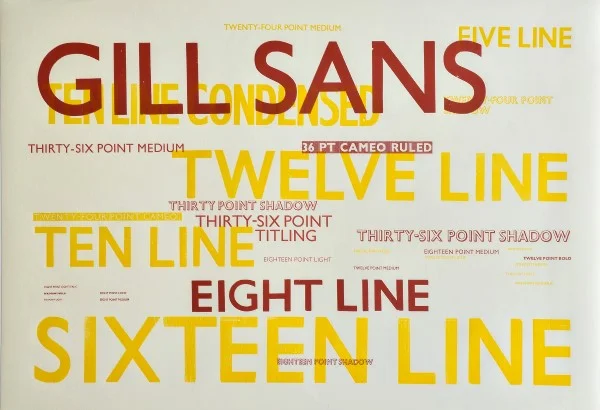
‘Gill Sans’ is a tribute to Eric Gill’s most famous typeface, designed in 1928 and still widely used today. The print is produced in two colours, show casing the typeface’s versatility in a variety of fonts and styles – shadow, cameo, cameo ruled, titling, condensed, Italic, light, medium and bold.
Gill Sans is a sans serif typeface and was based on Edward Johnston's 1916 typeface designed for The London Underground. Gill as a young artist had assisted Johnston in its early development stages.
This print was designed and hand printed using letterpress by The Hand and Eye Press in London.